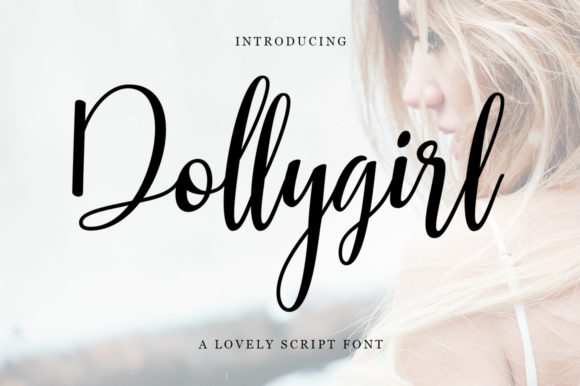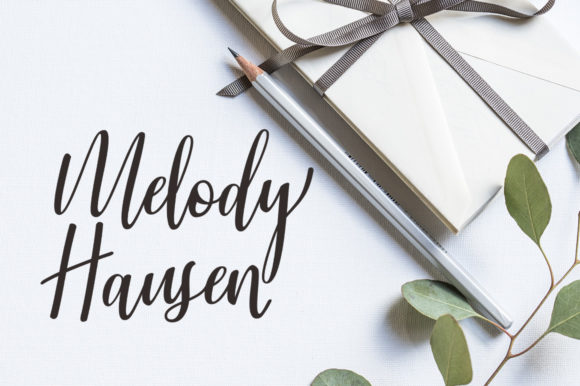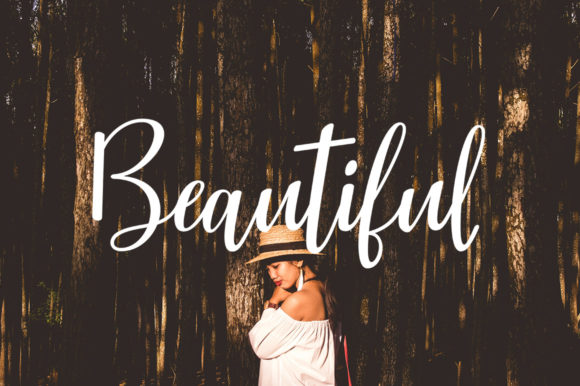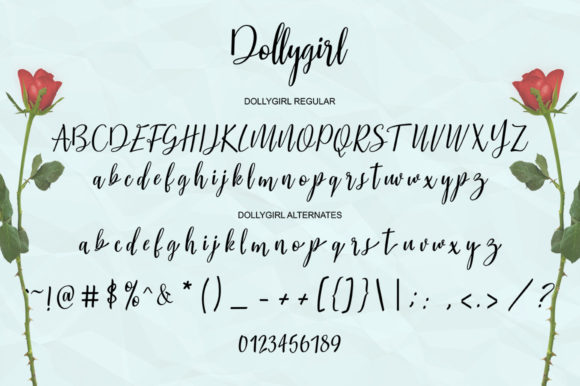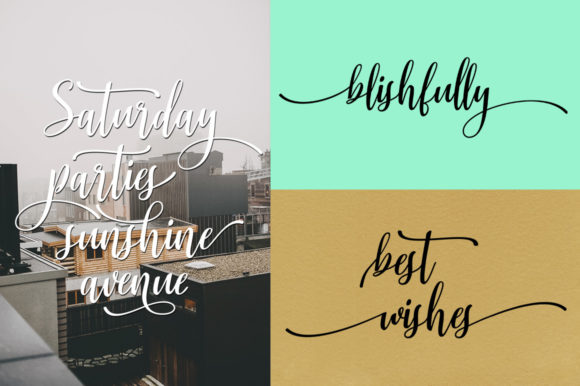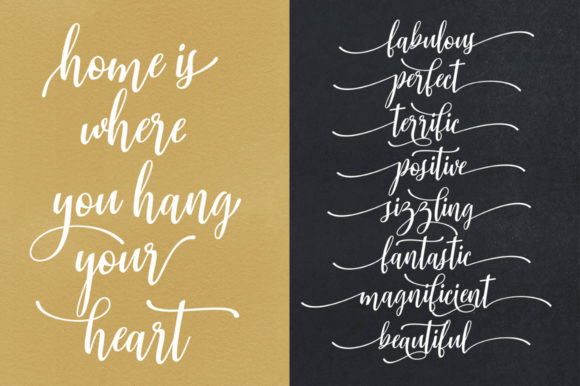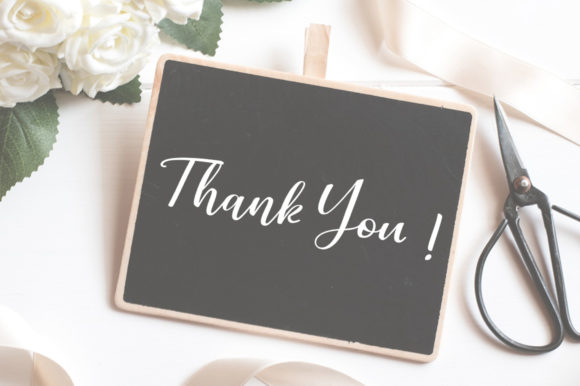
Dollygirl Font
About Dollygirl Font
The Dollygirl is a new modern script font. It’s irregular baseline will give your design a trendy and feminine style.
The Dollygirl looks beautiful on wedding invitations, thank you cards, quotes, greeting cards, logos, business cards and much more.